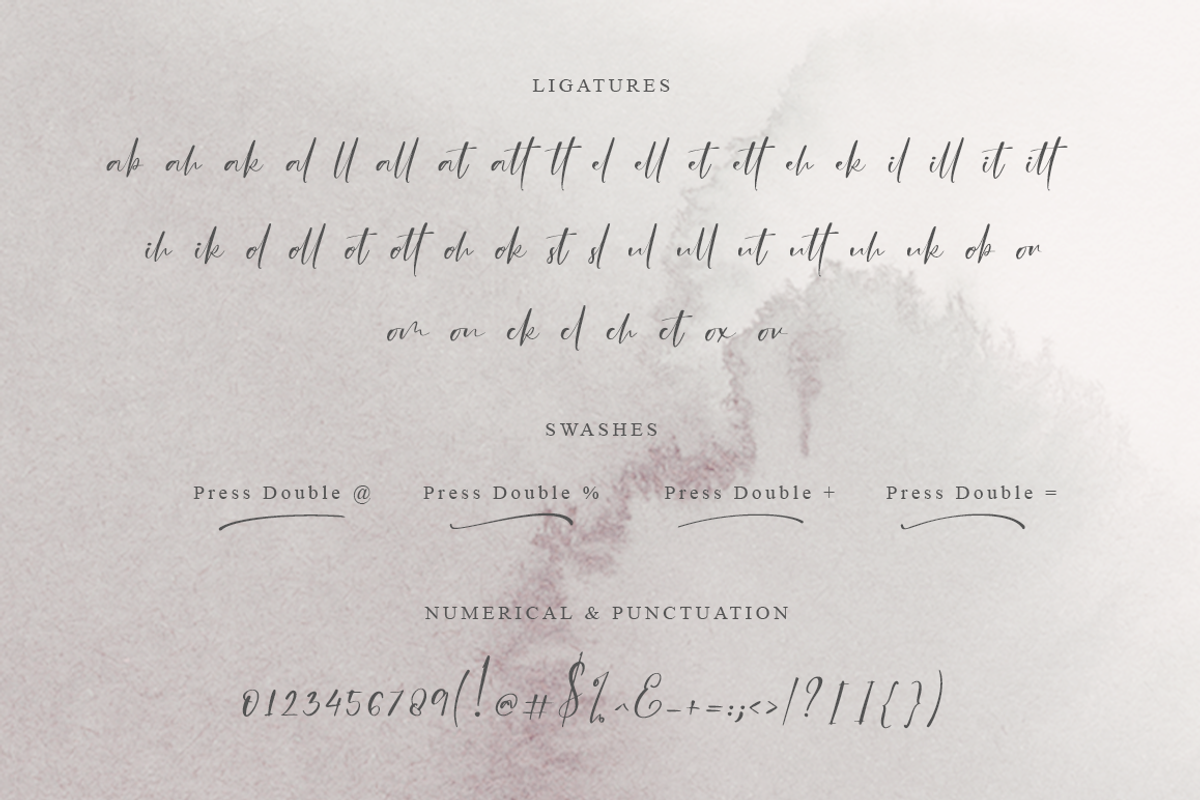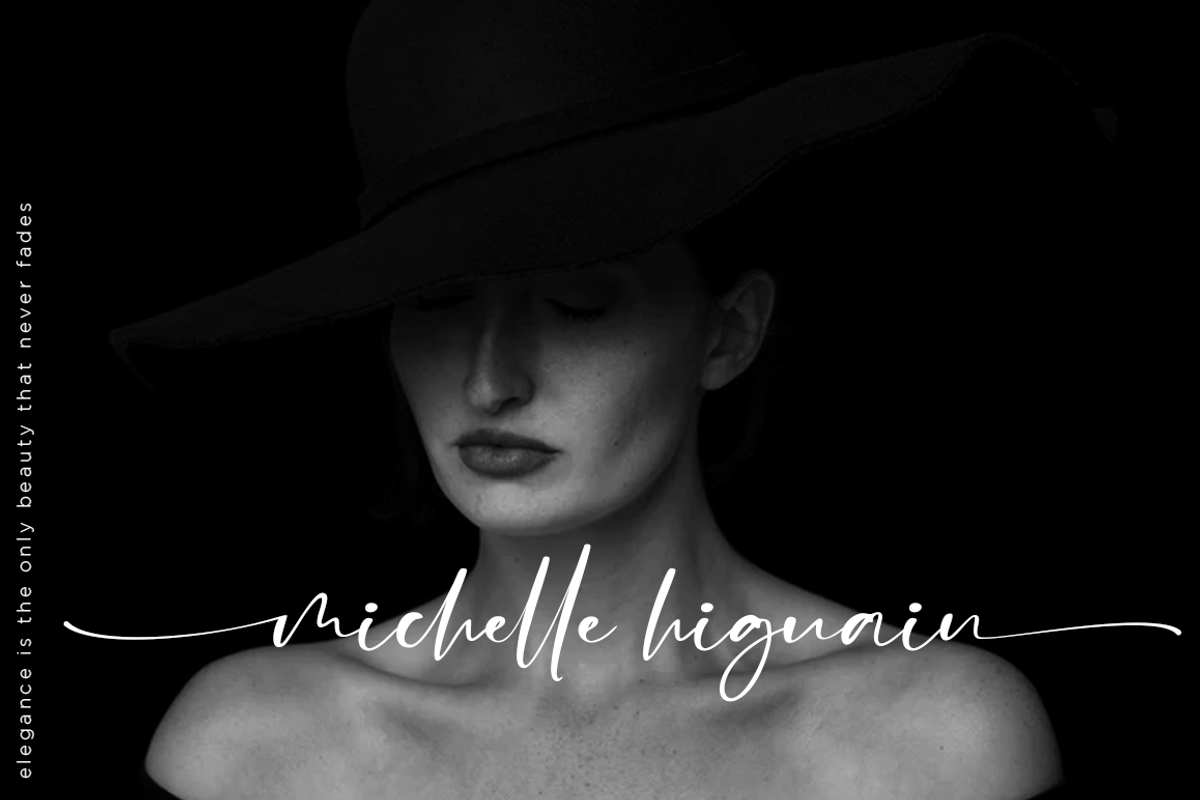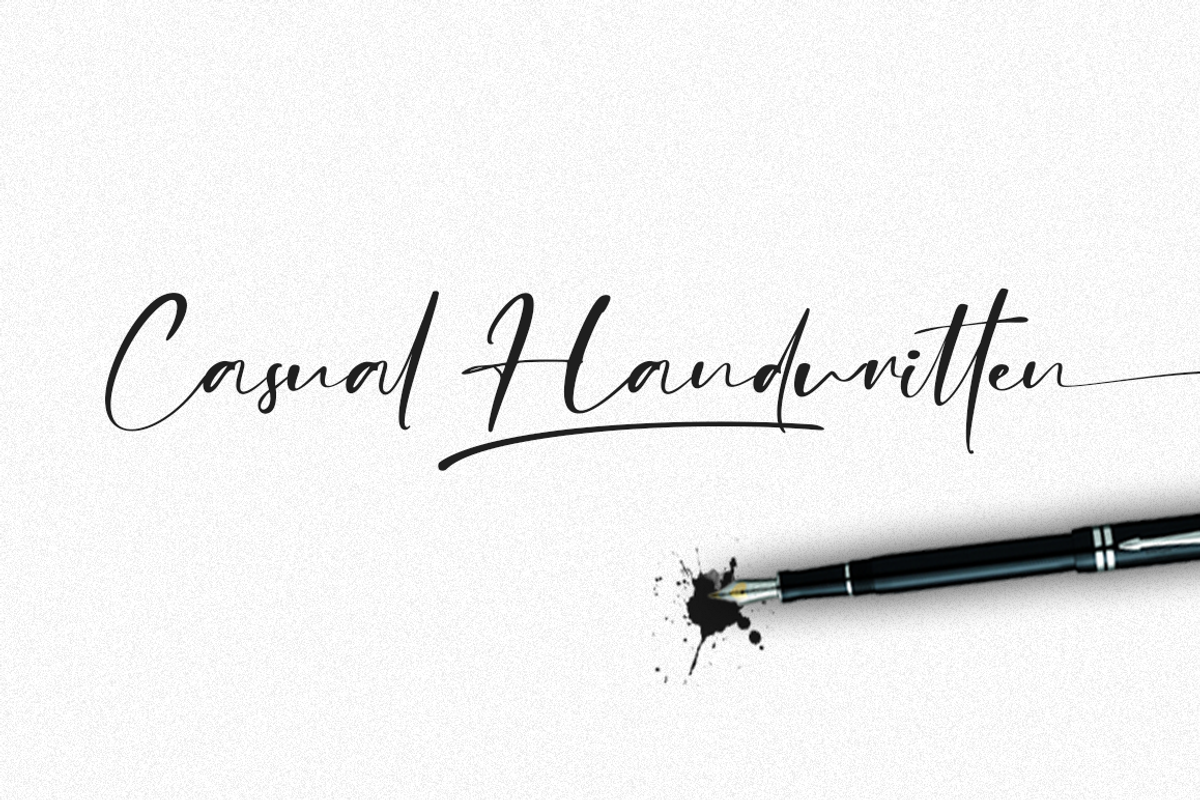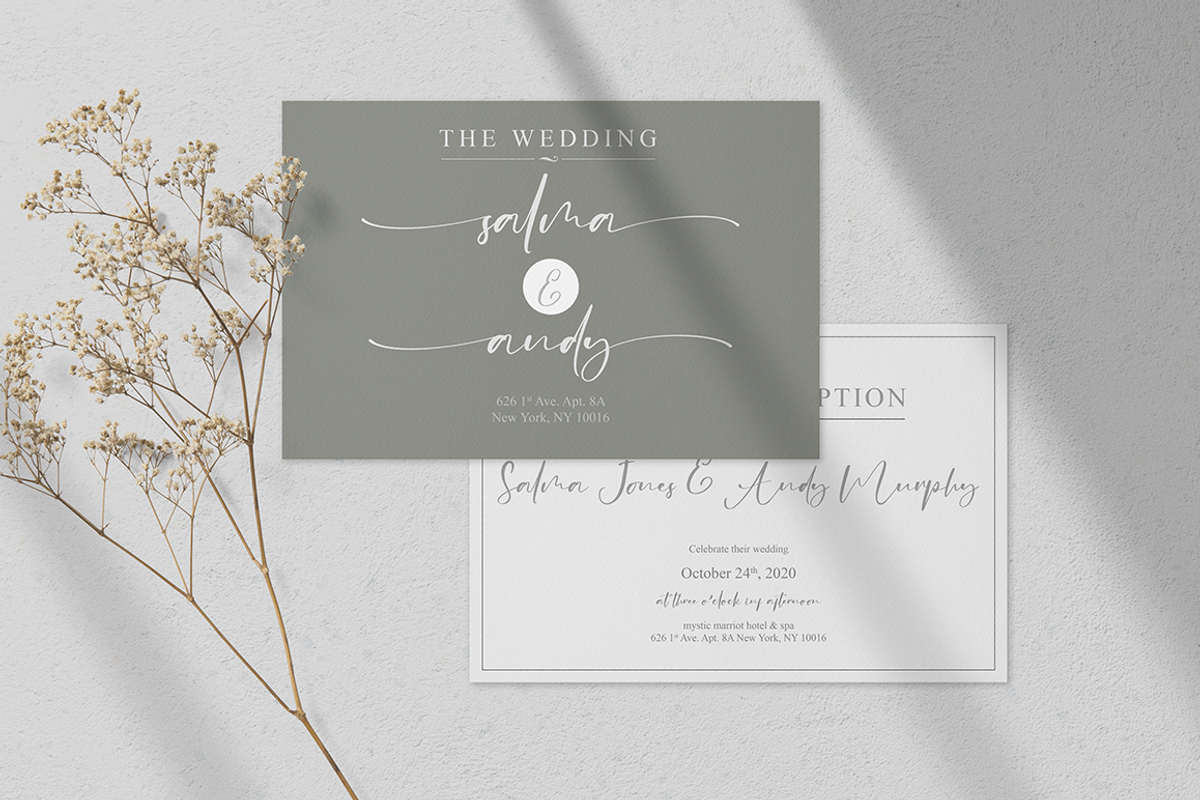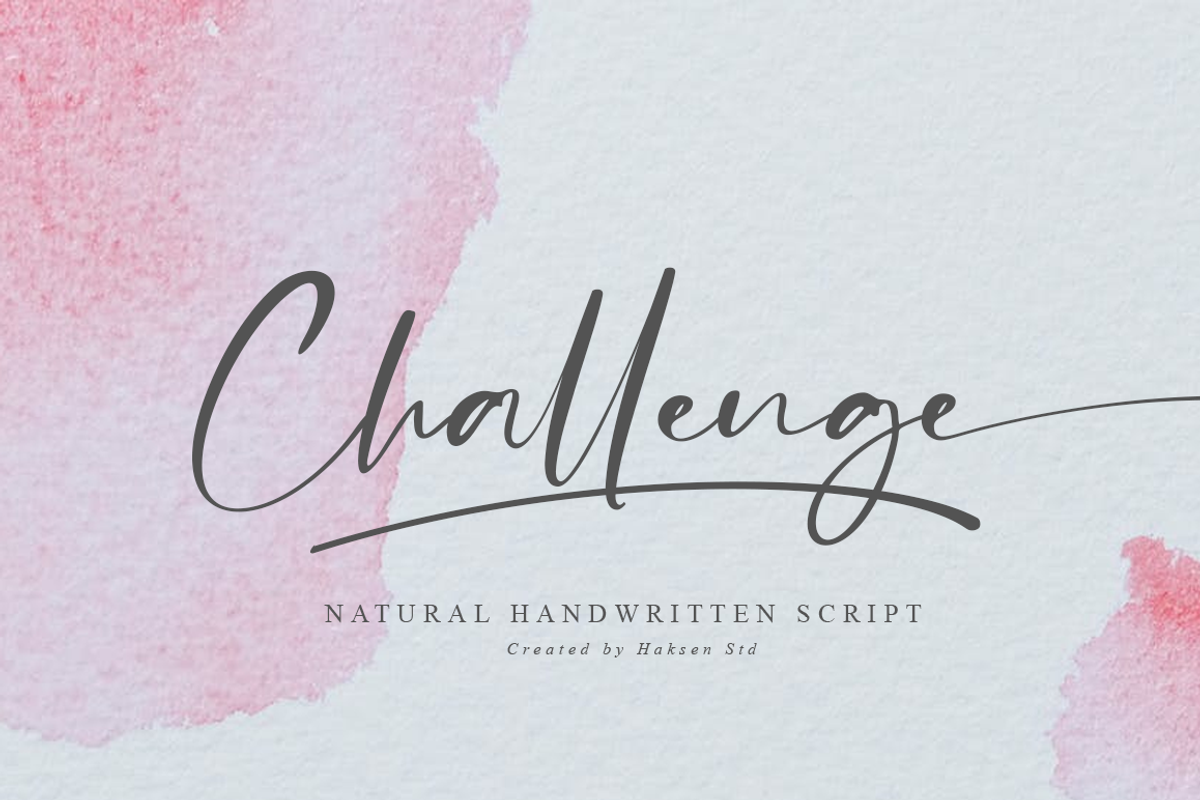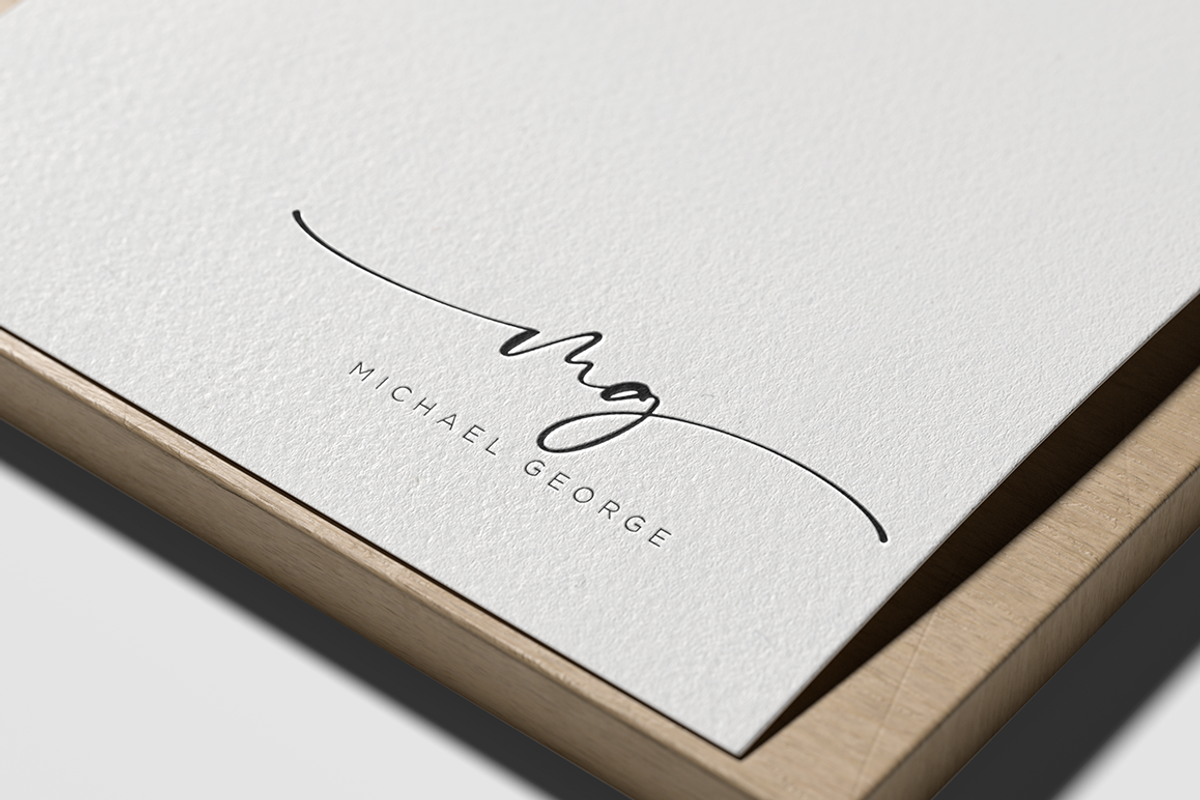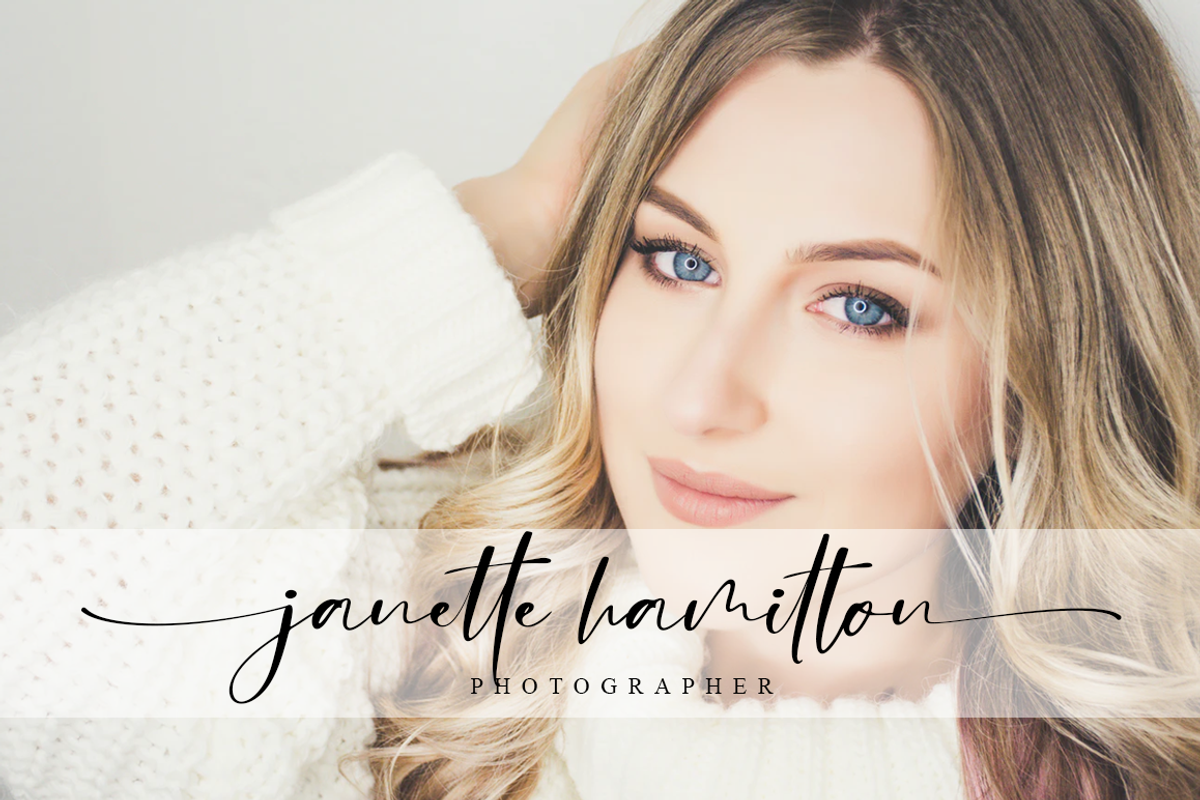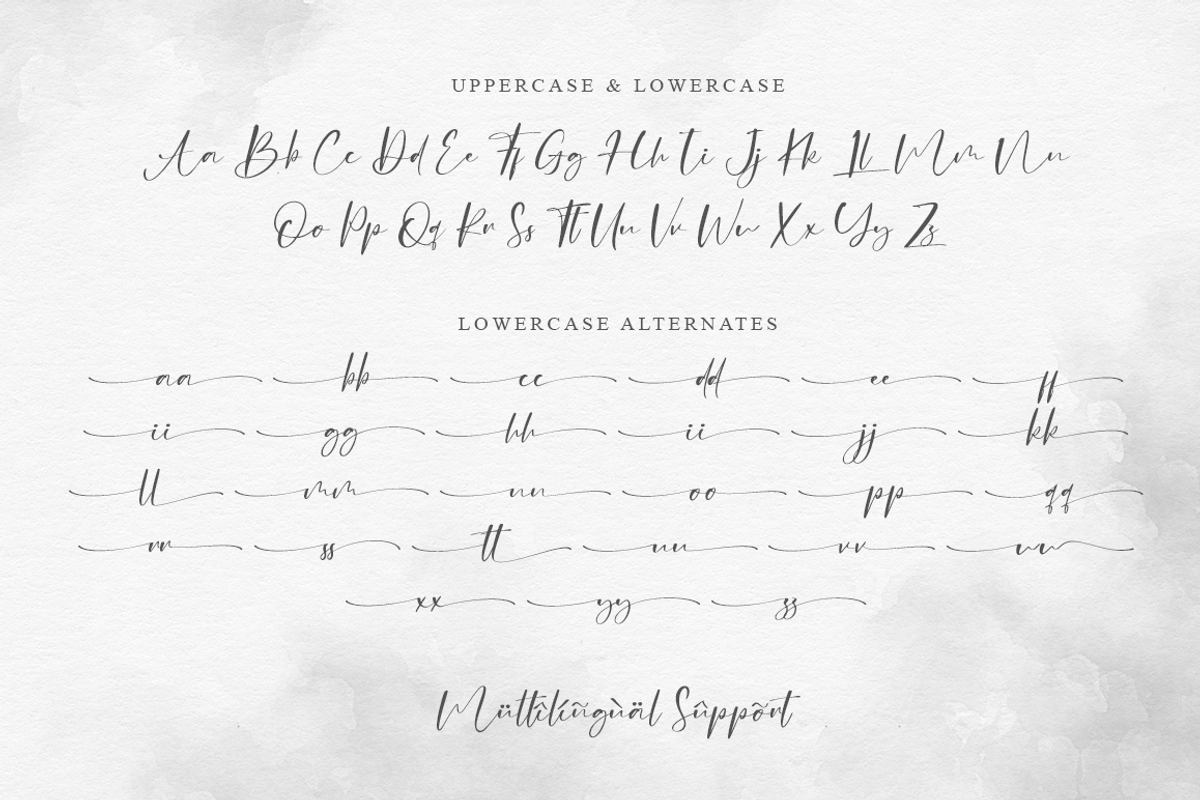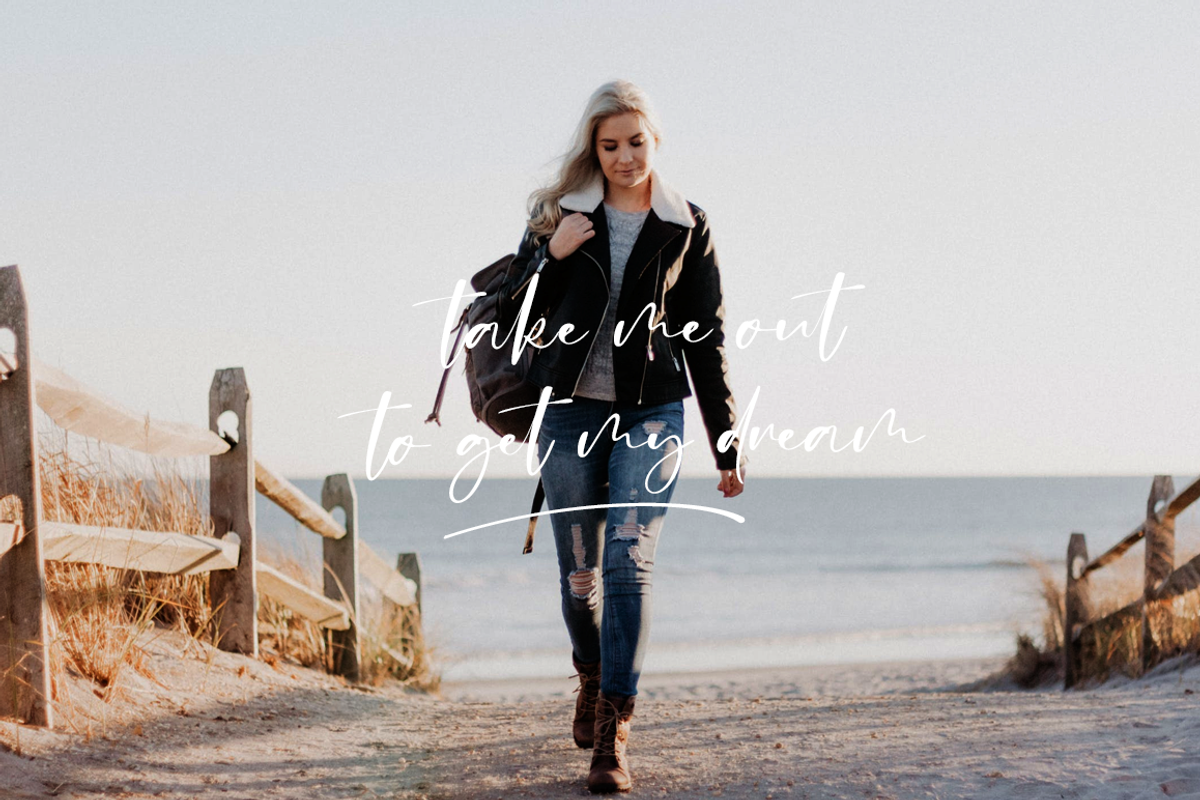
Challenge // Casual Handwritten Font
Challenge is a stylish modern handwritten script font with casual chic flair. It is perfect for branding, signature, wedding invitation, promotion, product packaging, and other needs. You will get full set of lowercase and uppercase letters, numerals and punctuation, multilingual symbols, lowercase beginning and ending swashes, ligatures and extra swashes that giving realistic hand-lettered style.